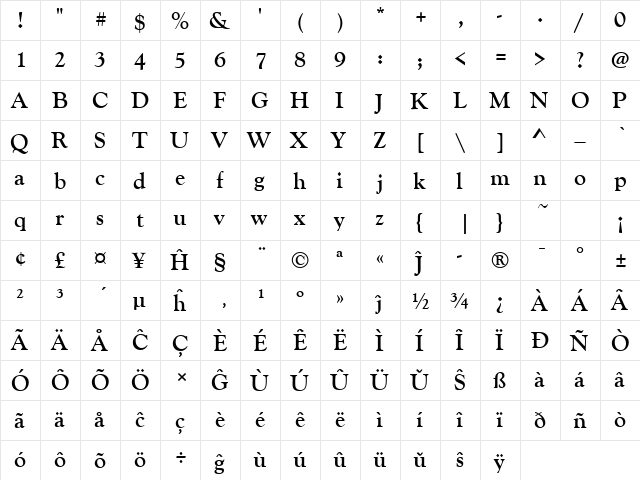
Goudy Old Style Eo Bold
Design Context for Goudy Old Style Eo Typeface
Goudy Old Style Eo takes a measured approach to typography — its balanced proportions and neutral character make it a reliable workhorse for both digital and print work. Its bold stroke weight gives it real presence on the page.